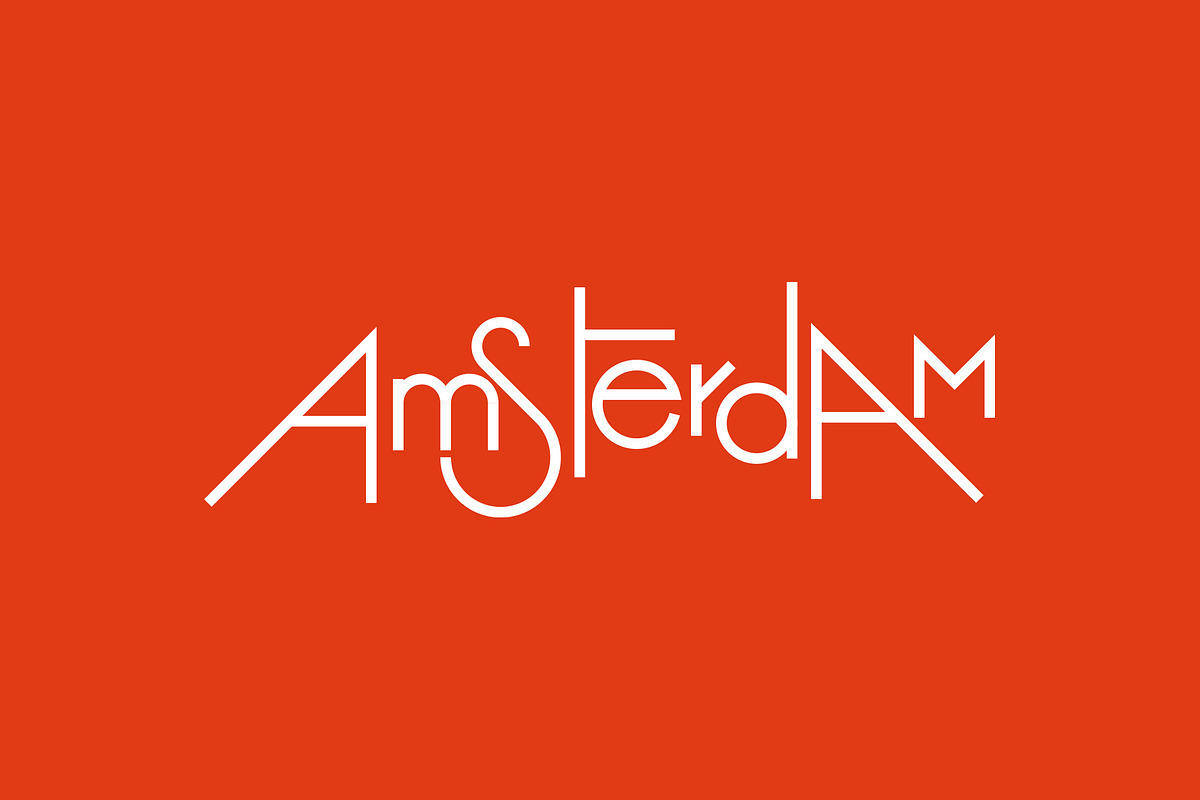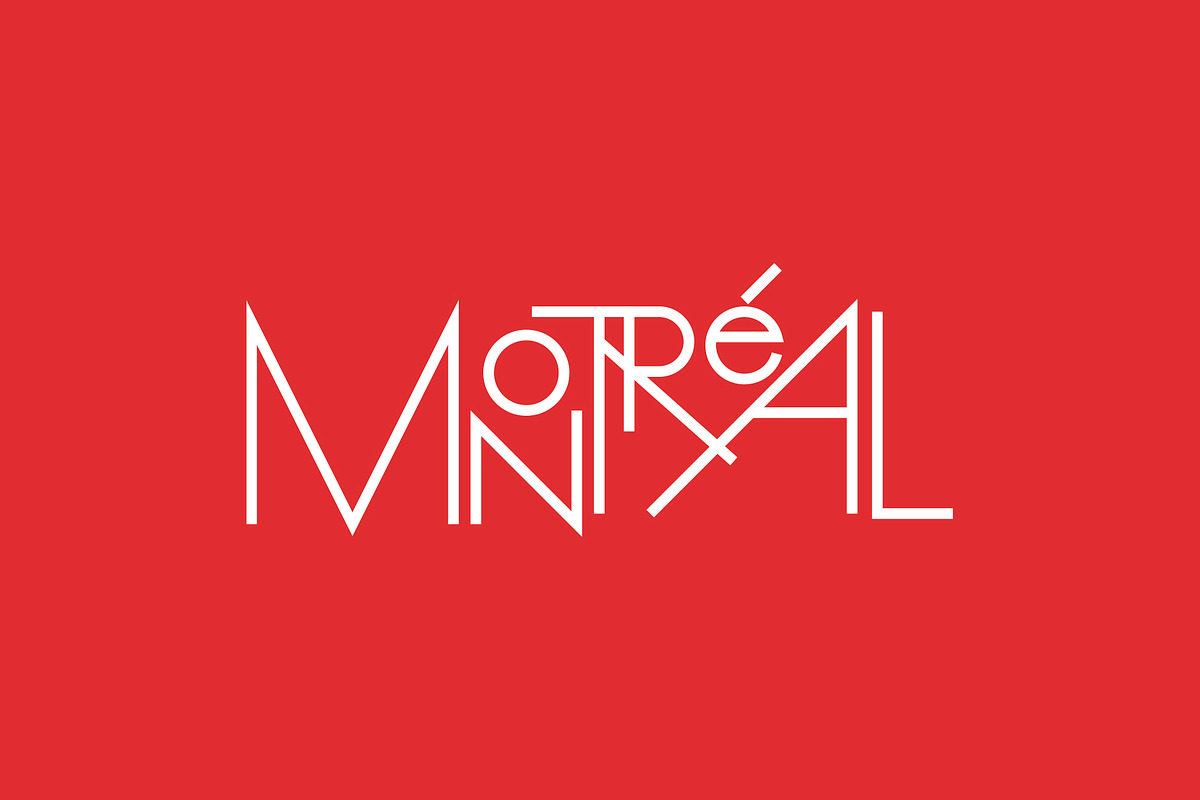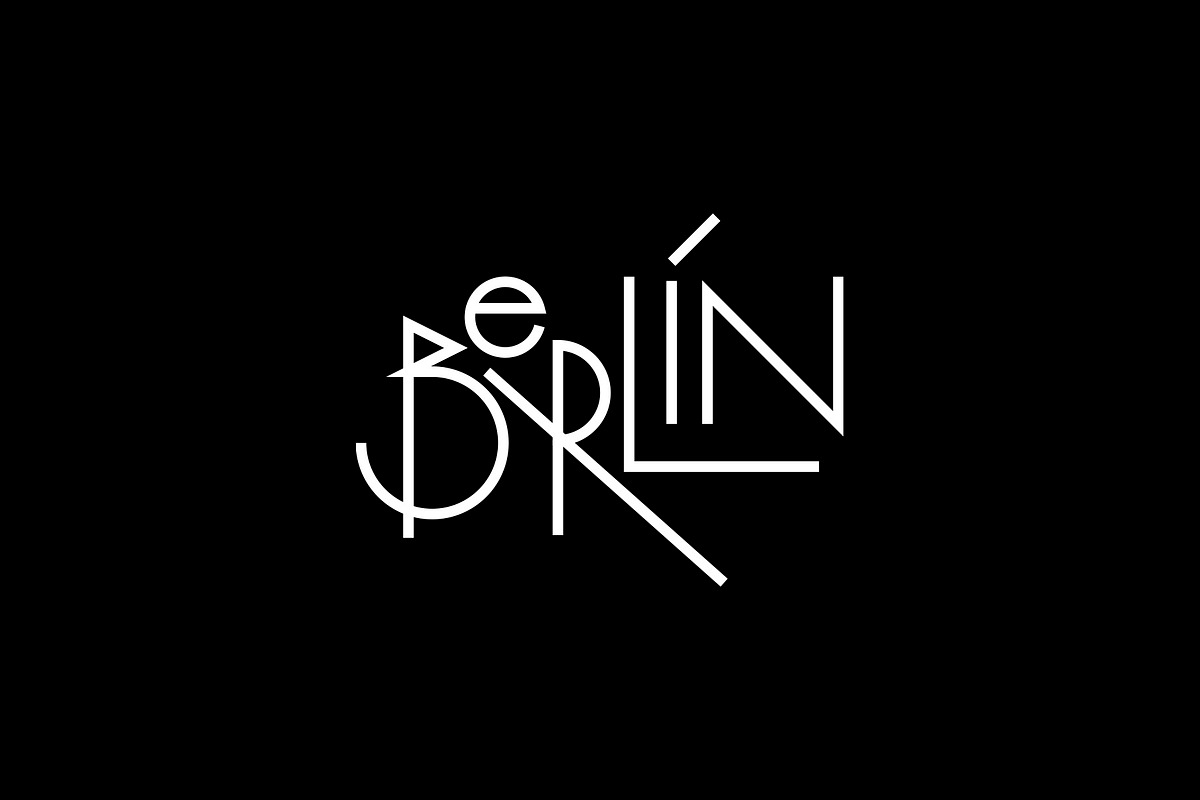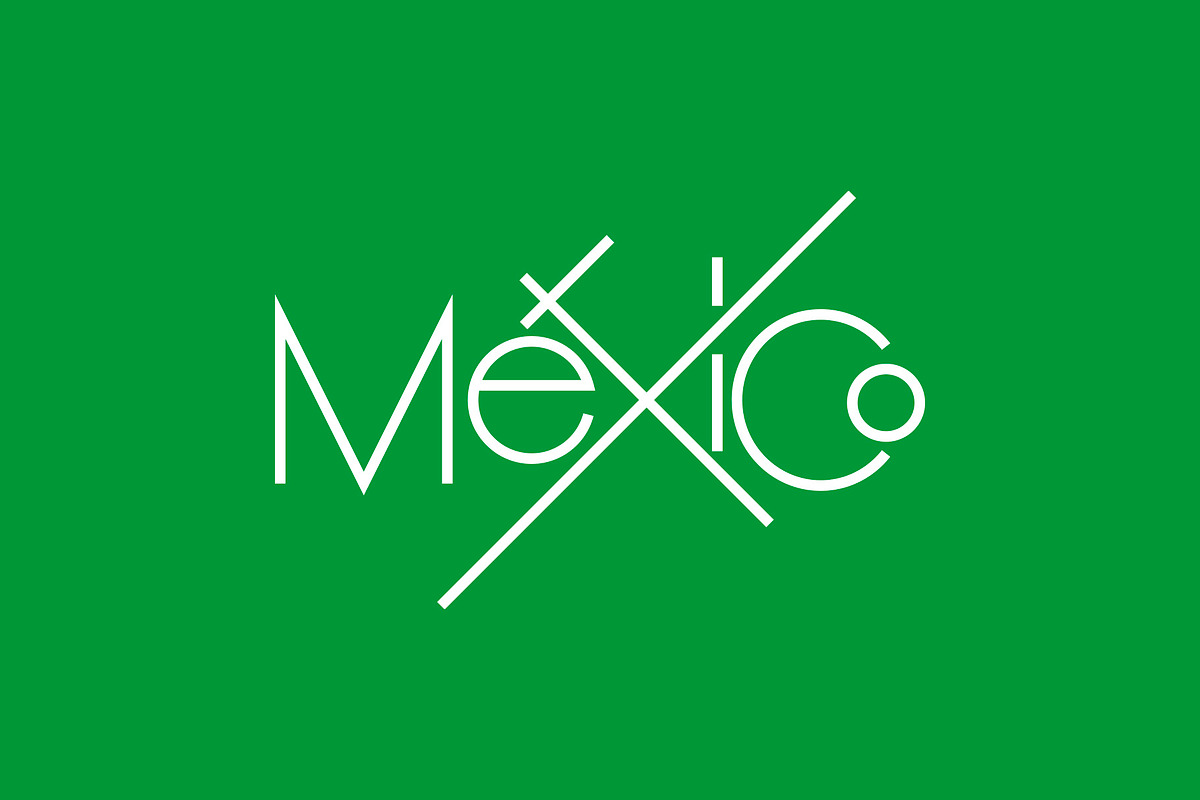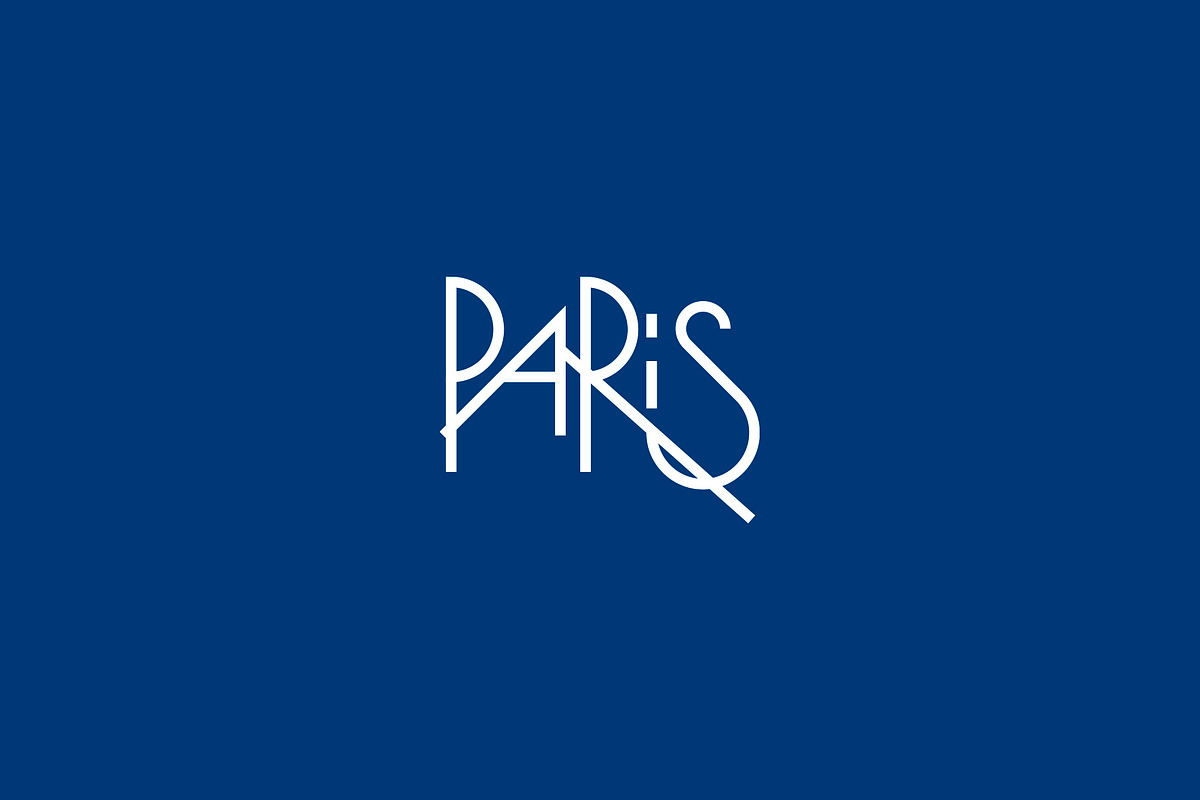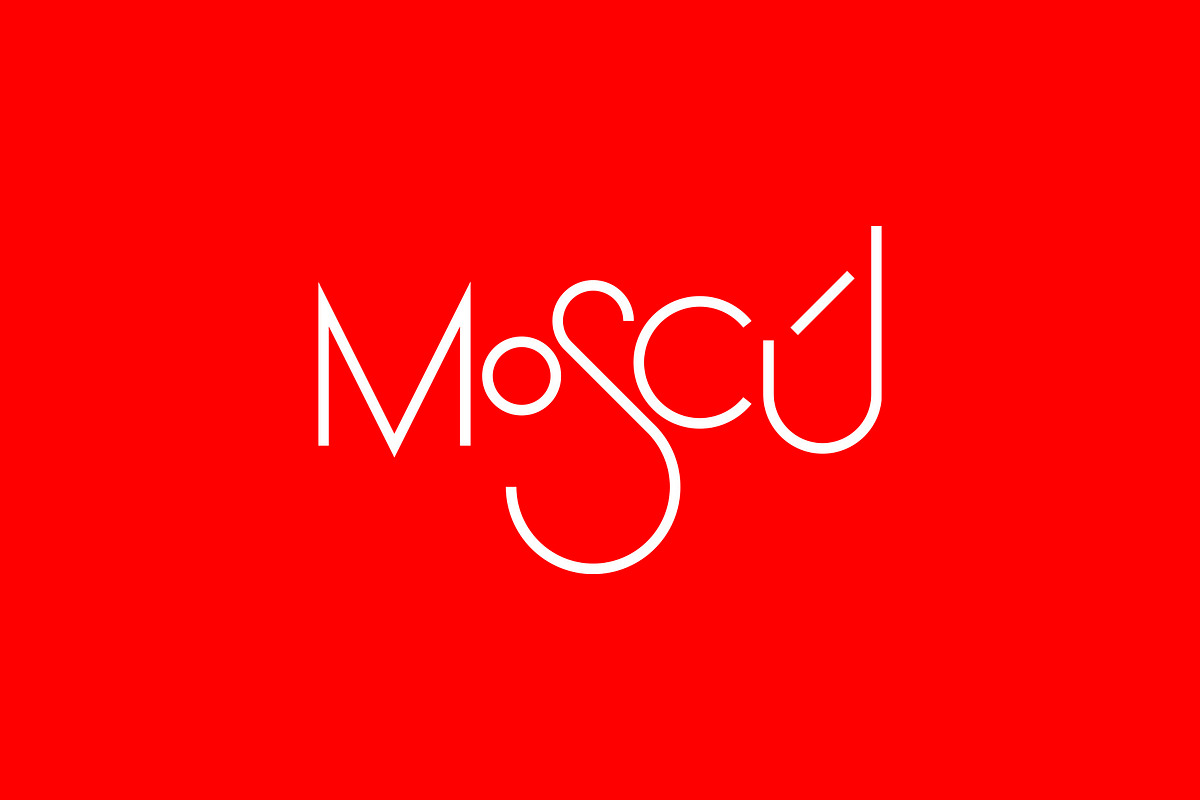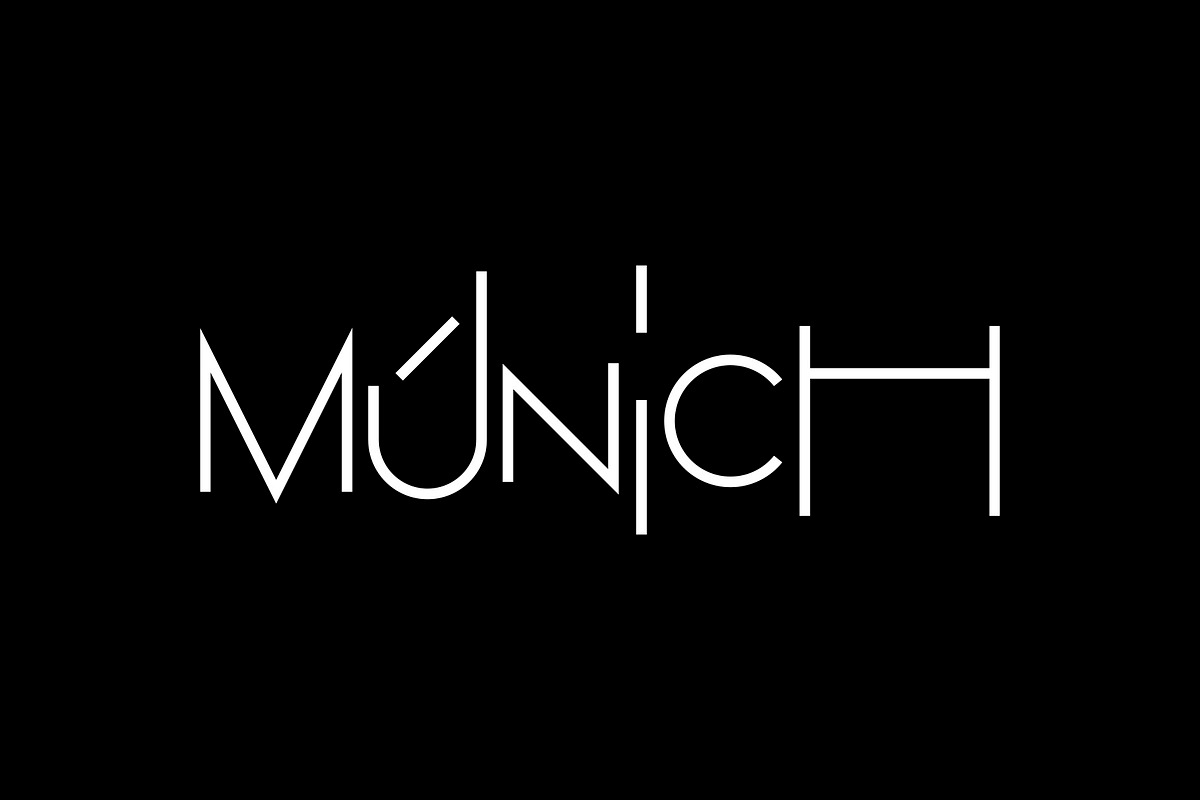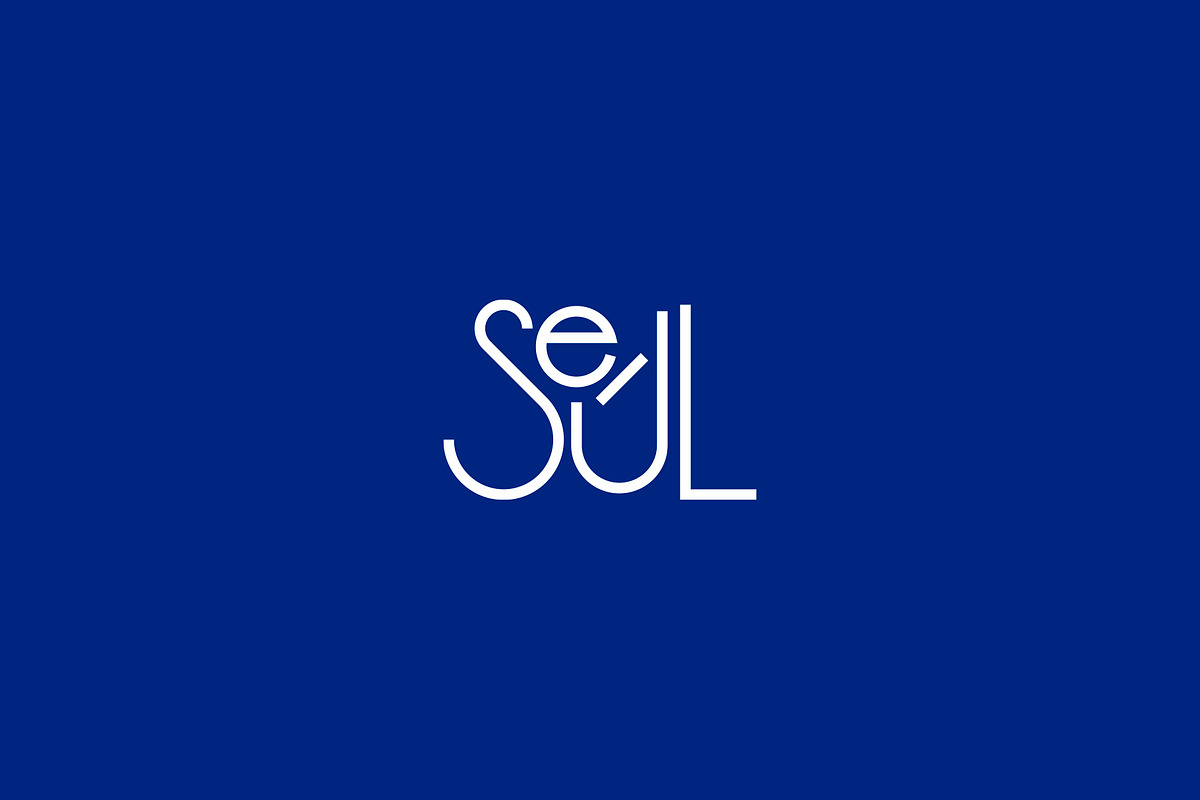
Linear-FTN Display Vector only font
Linear-FTN Display vector font
·Minimal vector linear font designed with a retro feeling, better suited for short text and titles.